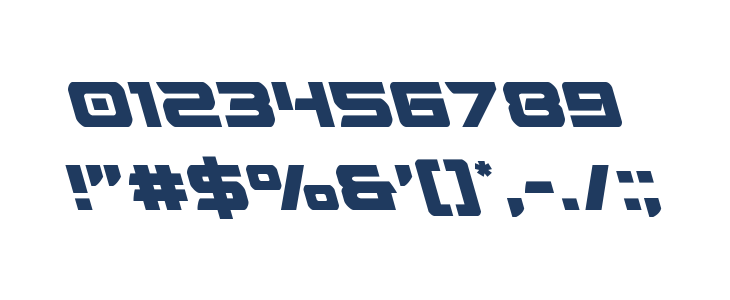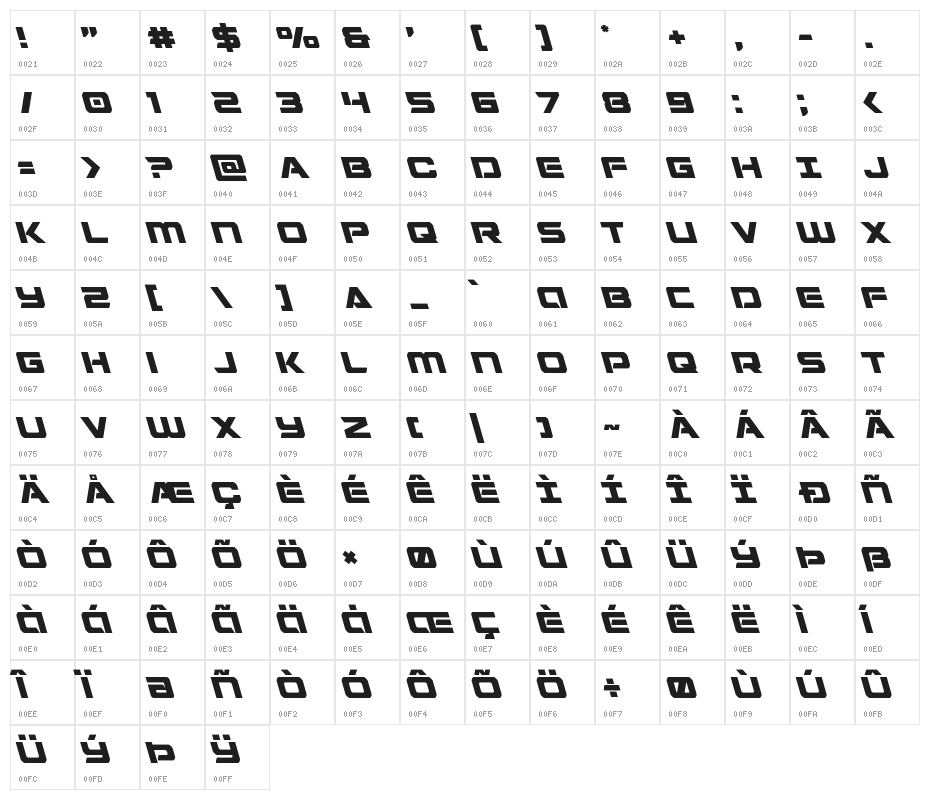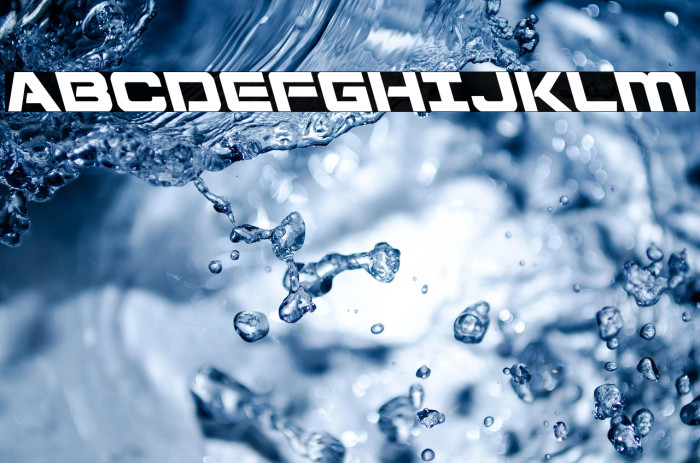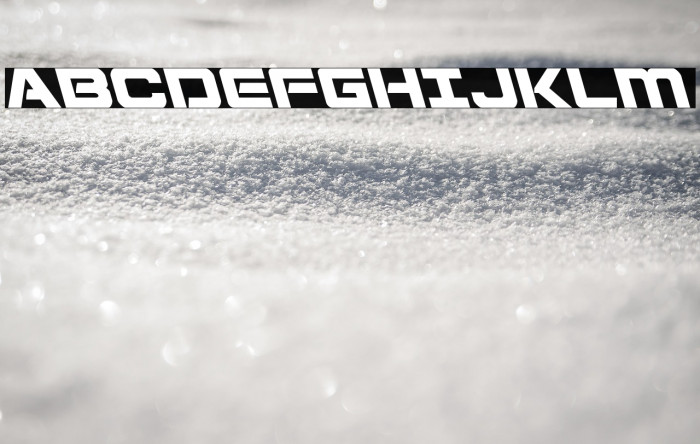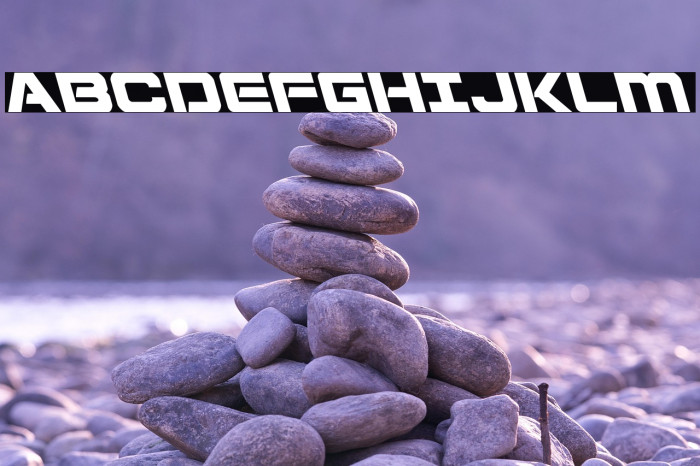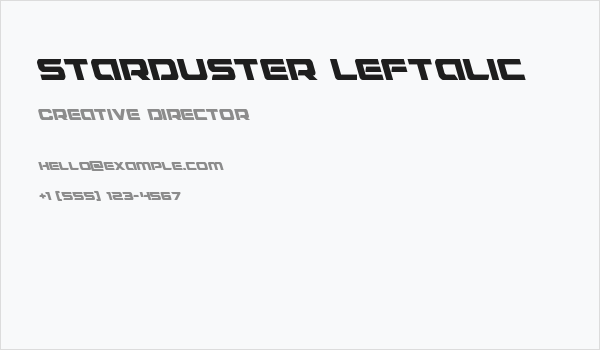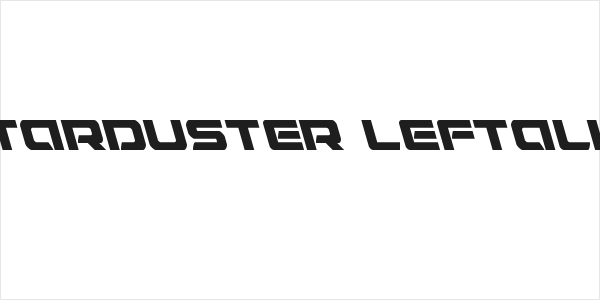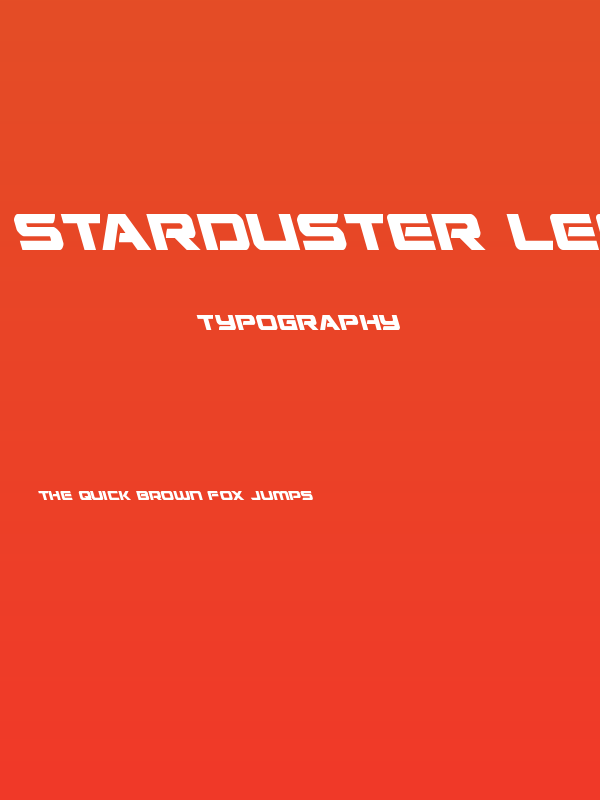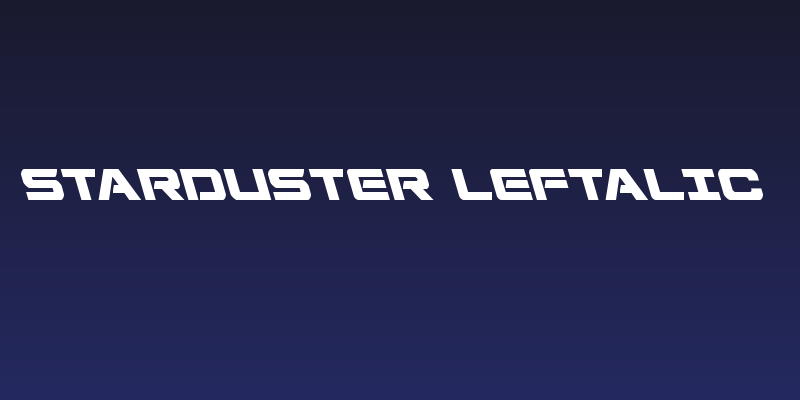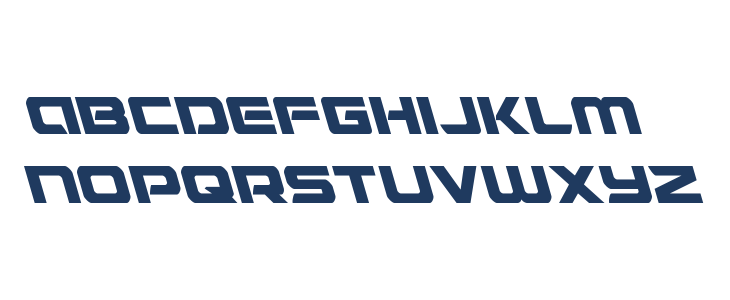
Starduster Leftalic Font
Starduster Leftalic Description
This font exhibits a bold and futuristic style with a distinct slant to the left, giving it a dynamic and forward-moving appearance. The characters are geometric and angular, with sharp edges and a consistent stroke width that adds to its modern aesthetic. The uppercase and lowercase letters maintain a uniform height, enhancing readability while preserving a unique character. Numbers and special characters are designed to match the overall style, ensuring cohesion across all elements. This font is ideal for projects that require a strong, impactful visual presence.
| Proposed Projects | Ideal for sci-fi themed designs, video game titles, technology branding, and modern posters. |